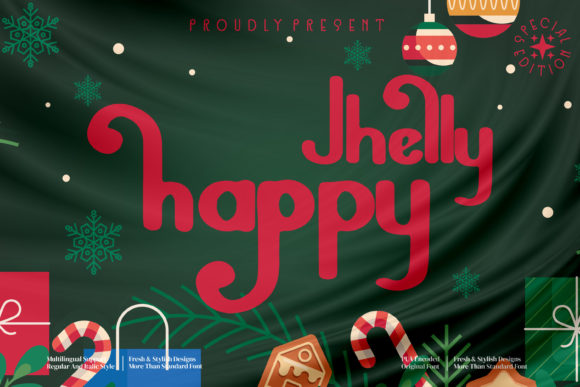
Behold the remarkable Happy Jhelly Font family, lovingly crafted by the visionary artisans at mahstudios. This sans serif masterpiece oozes charm and playfulness, captivating hearts with its cheerful elegance. Whether you're weaving enchanting invitations for weddings or conjuring captivating branding projects, Happy Jhelly will elevate your vision to new heights.
Immerse yourself in a world of creative possibilities. Picture your designs adorned with this charming font, your words dancing harmoniously across logos, products, and packaging. Envision mugs adorned with inspiring quotes, posters bursting with positive affirmations, and shopping bags brimming with joyful vibes. Happy Jhelly transforms the mundane into the memorable, making every creation a work of art.
Beyond its aesthetic allure, Happy Jhelly possesses a remarkable versatility that will astound you. Its effortless charm weaves seamlessly into book covers, name cards, and invitation cards, adding a touch of delightful whimsy to any occasion. Greeting cards adorned with Happy Jhelly's cheerful strokes carry messages of warmth and love, while labels and watermarks infused with its playful spirit add an unforgettable touch of individuality.
Unleash your creativity with Happy Jhelly, and witness the transformation of ordinary designs into captivating masterpieces. Whether you're a seasoned designer or embarking on your creative journey, this font will ignite your imagination and propel your projects to new levels of excellence. Embrace the magic of Happy Jhelly and let your designs bloom with joy!